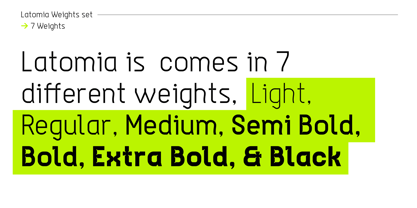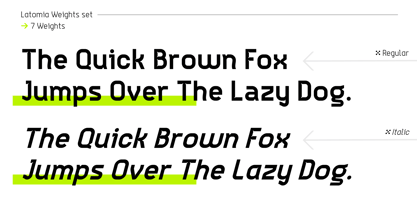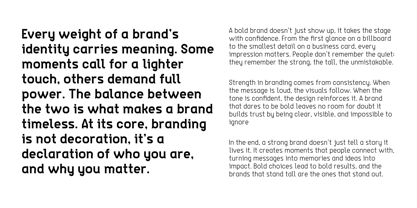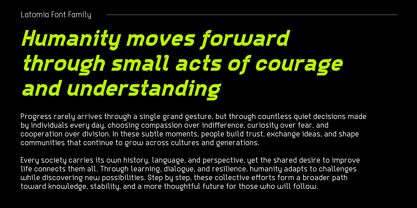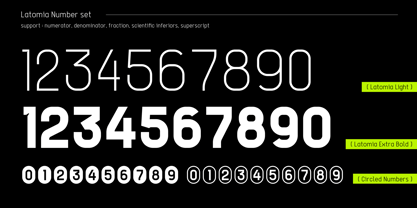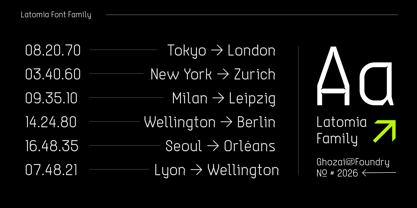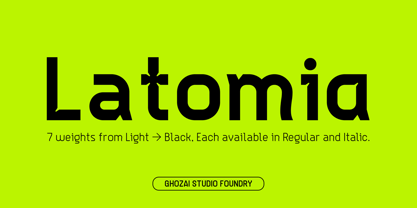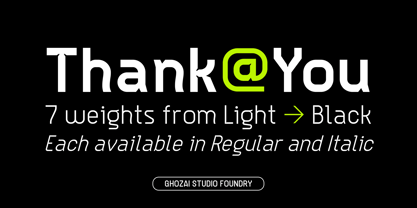
Latomia
by Ghozai Studio
Latomia is a grotesk-sans font family characterized by its innovative ink trap design, offering 7 distinct weights from Light to Black, each available in both regular and italic styles. This extensive range of weights, complemented by a rich set of symbols, OpenType features, and multilingual glyph support, ensures versatility for diverse languages and design needs. Its modern, clean, and bold aesthetic makes it ideal for a variety of applications, including display, branding, signage, festival posters, sports, and more. Whether you're crafting impactful headlines, unique logos, or clear signage, Latomia seamlessly combines style with functionality. Its adaptability to different design styles positions it as an excellent choice for any project that requires a bold and contemporary flair.
Designers: Manzur Ghozaali
Foundry: Ghozai Studio